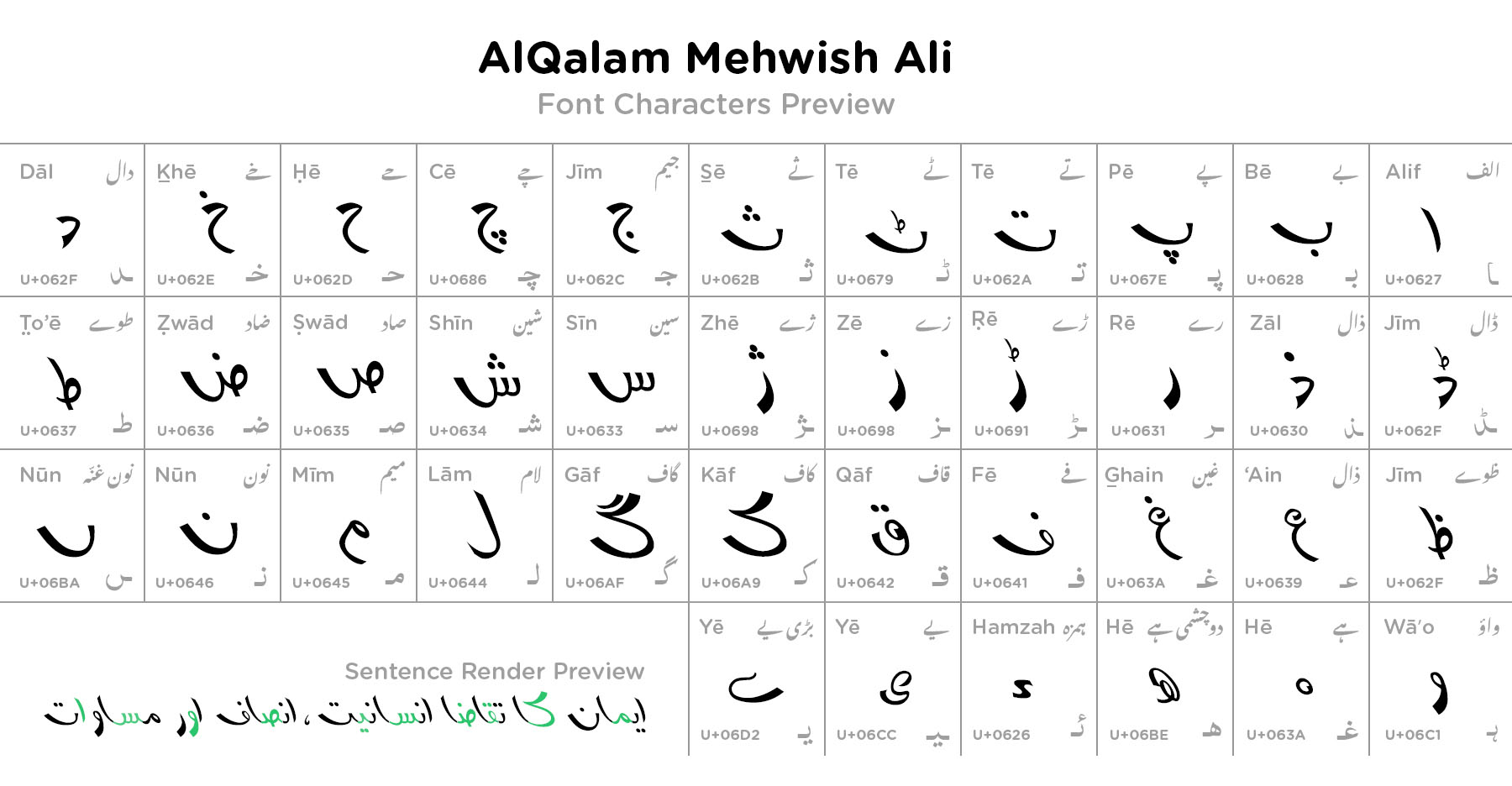
AlQalam Mehwish Ali is yet another open-source TrueType Urdu typeface based on the Naskh script. It is a stylish and modern Urdu font that is ideal for writing literary works such as poetry and prose. AlQalam Mehwish Ali is also a highly adaptable font that may be used for many different kinds of purposes, like attractive brochures, posters, YouTube thumbnails, and more. It has a glyph count of 334 and a character set of 219 letters with support for Latin, Urdu, and Arabic. The font’s modern style gives itself well to creative writing, allowing authors to express their feelings and thoughts with beauty. The thickness of the strokes changes within each letter and across the alphabet, adding depth. The serifs at the ends of some letters are very small and subtle, emphasizing the font’s modern aesthetic. The spaces within the letters are generous, preventing the font from feeling too heavy or messy. The strokes of the letters end in soft, rounded ends, which adds a playful energy to the text. Many websites today have used this font to add visual appeal to their text.